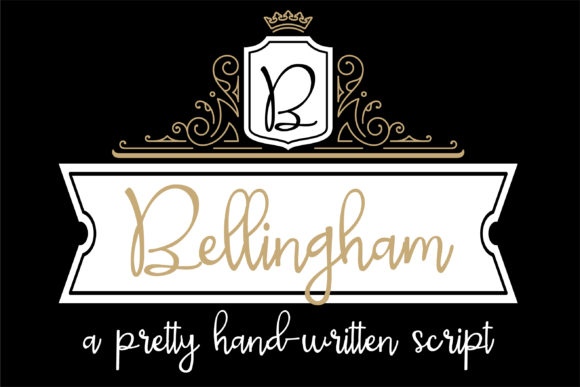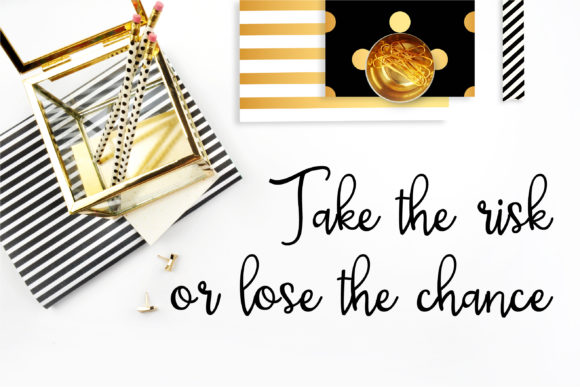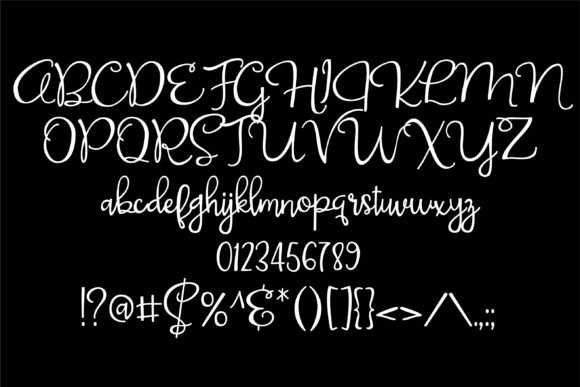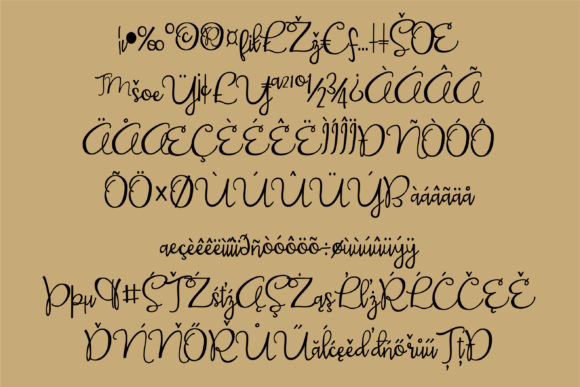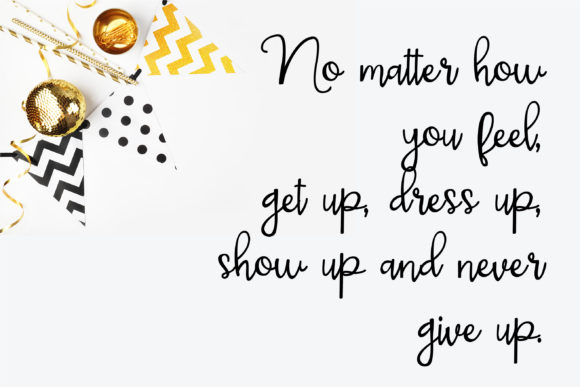
HomeScript FontsBellingham Font Script Fonts Bellingham Font FacebookXPinterestWhatsApp Bellingham Font Poster 2 Bellingham Font Poster 3 Bellingham Font Poster 4 Bellingham Font Poster 5 About Bellingham Font This pretty hand-written script has large loops and a very upright casual-ness. DOWNLOAD ON CREATIVE FABRICAThis font is sold and delivered by Creative Fabrica. Font Canyon may earn a commission if you buy through this link. People also explored Milando Font Sticky Candy Shorter Font Batsy Font Byhemia Mylaqin Font Etnier Font Moule Font Love Star Font Million Font 341 0 TagsBellingham Font Previous articleCalon Biny FontNext articleBetrothed Font LEAVE A REPLY Cancel reply Comment: Please enter your comment! Name:* Please enter your name here Email:* You have entered an incorrect email address! Please enter your email address here Website: Save my name, email, and website in this browser for the next time I comment. Personal Use Free Rembank Personal Use Free Read more about this font Penelope Brush Script Font Personal Use Free Read more about this font Carnivals Personal Use Free Read more about this font Bosque Font Personal Use Free Read more about this font BLOG Free Fonts Risk: Why Free Fonts Can Be Dangerous for Designers Free Fonts Risk: Why Free Fonts Can Be Dangerous for Designers Using free fonts is a common practice in web and graphic design. However, the... Best Fonts for YouTube Videos: Make Your Thumbnails Stand Out Transform Your Website: Elevate Your Typography with 7 Best Web Font Generators Using Fonts in Digital Marketing: Tips to Strengthen Your Brand Identity